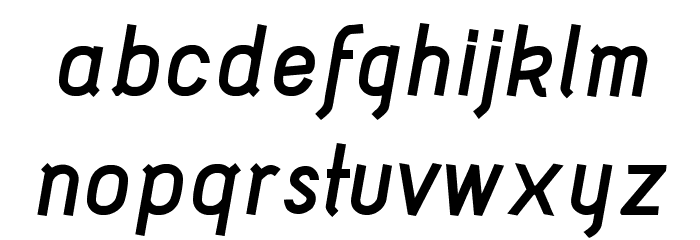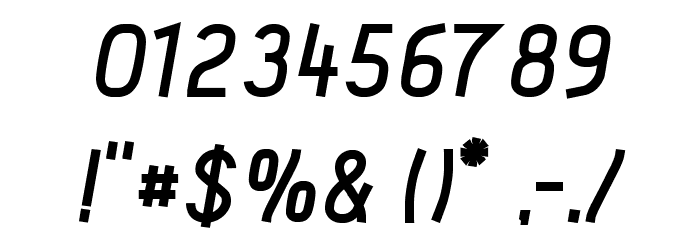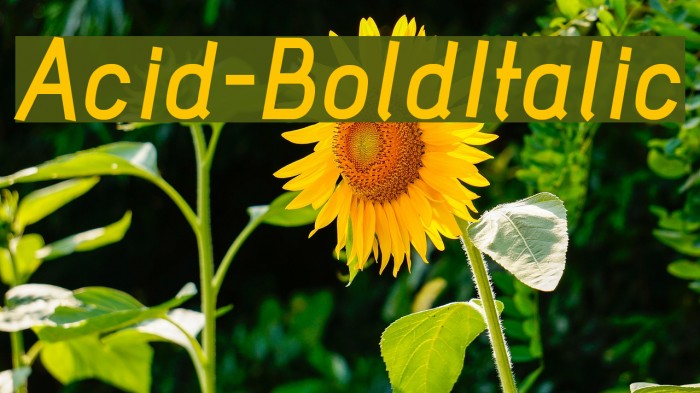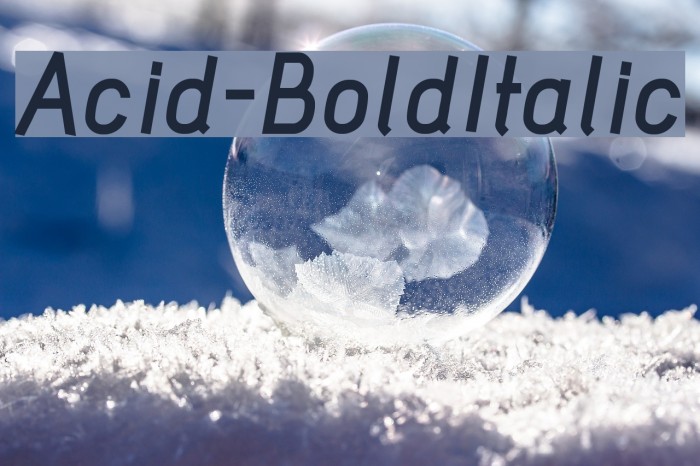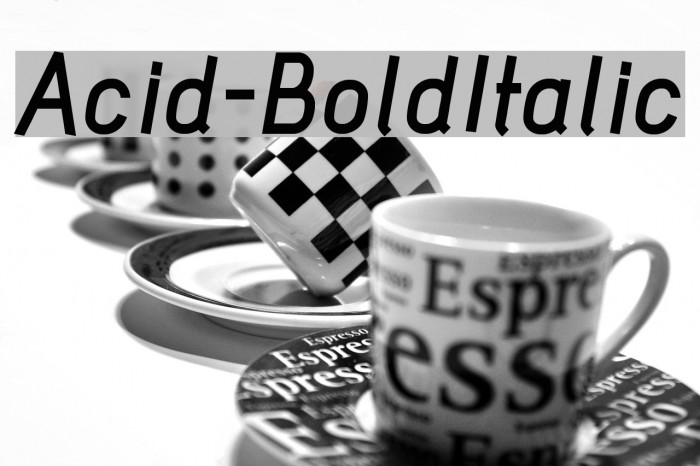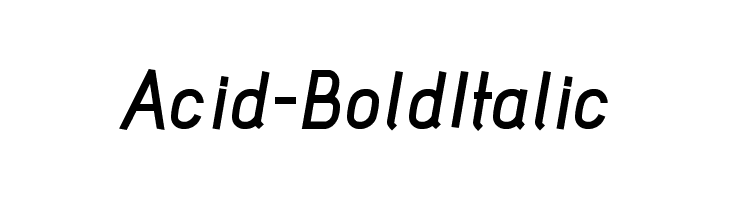
Acid-BoldItalic Font
This font features a bold and italicized style, characterized by its dynamic and slanted appearance. The letters are slightly condensed, giving it a compact look while maintaining readability. The strokes are consistent in weight, providing a uniform appearance across all characters. The uppercase letters are tall and commanding, while the lowercase letters are well-proportioned, ensuring a balanced aesthetic. The numerals are clear and distinct, making them easily distinguishable. Special characters are designed to complement the overall style, adding versatility for various uses.
A bold, italicized font with a dynamic and slightly condensed style.
- Proposed Projects: Ideal for branding projects, advertising, and headlines where a bold and modern look is desired.
- Use Case: Headlines, Logos, Branding